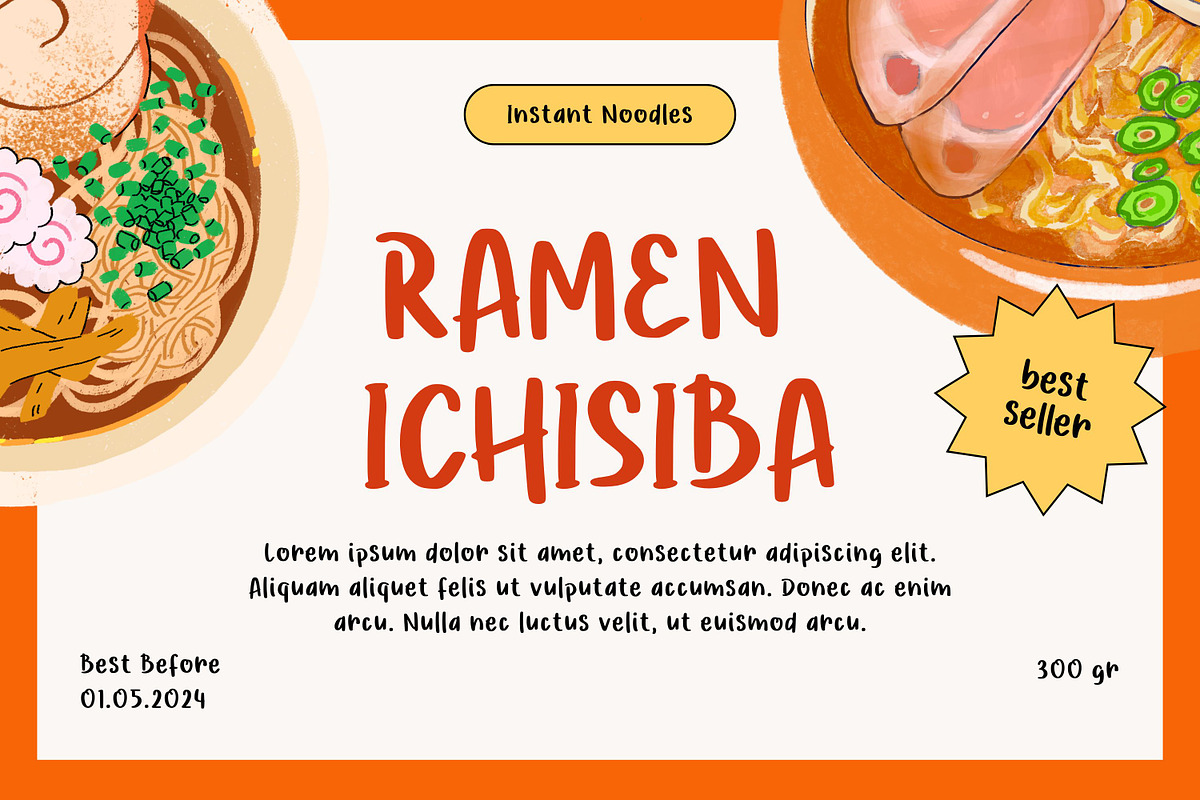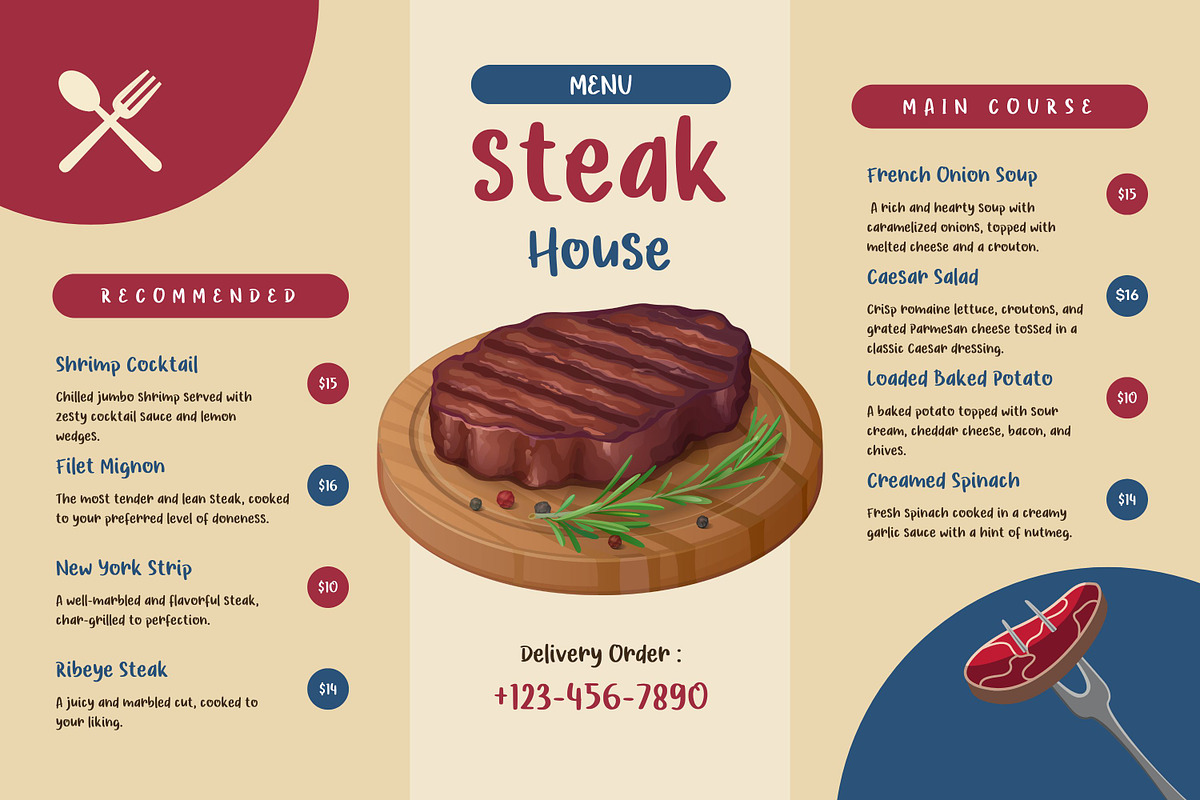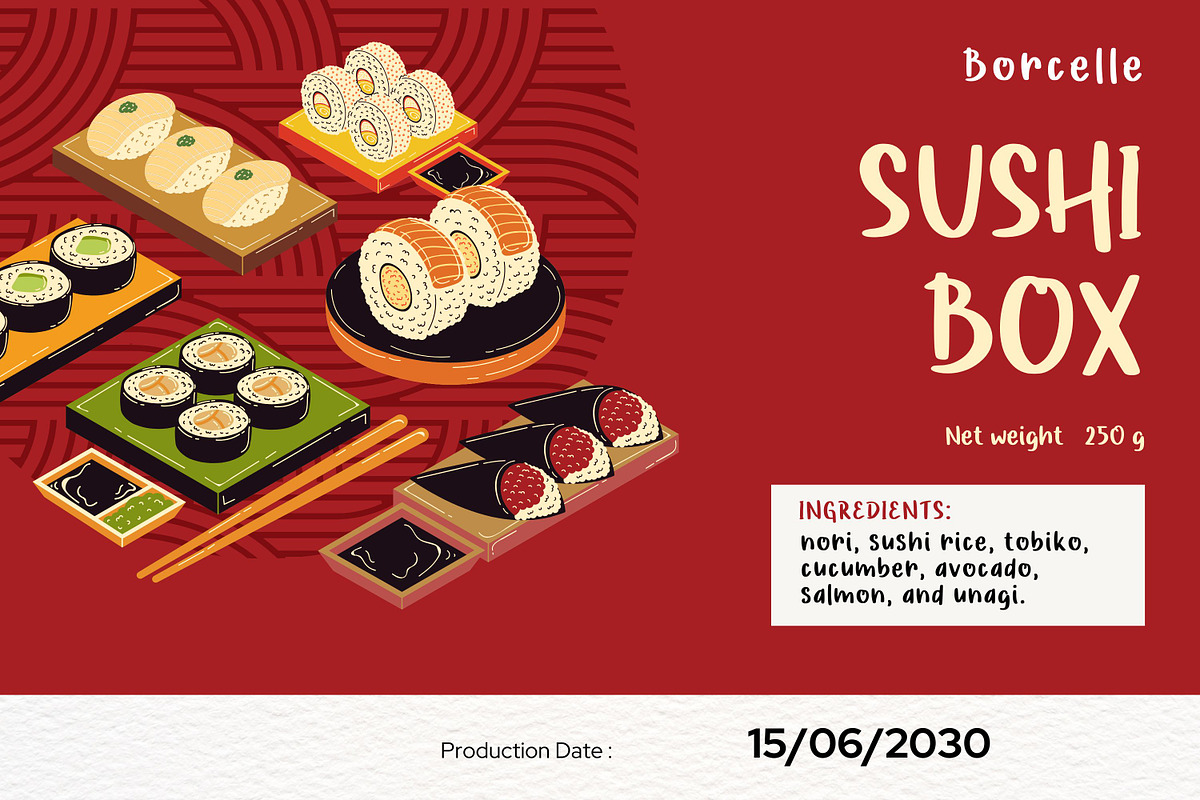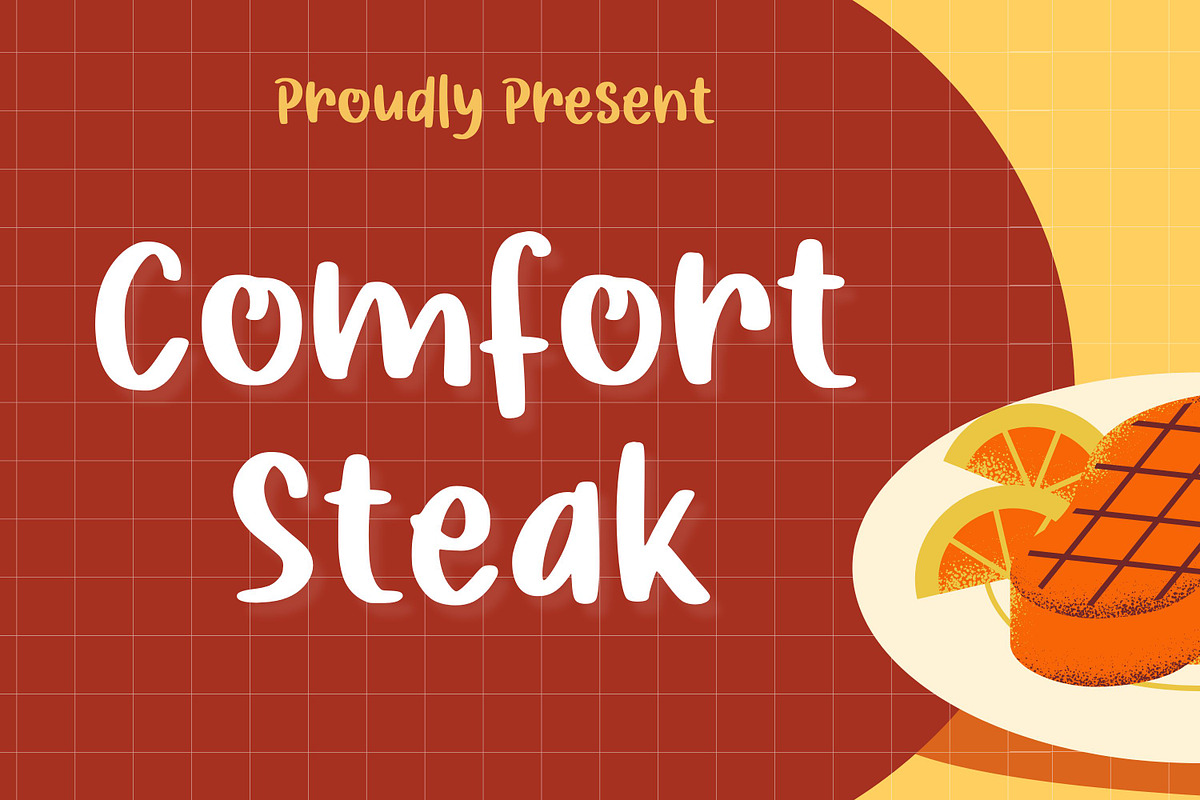
Comfort Steak
Introducing "Comfort Steak," a dynamic and audacious typeface tailored to infuse creativity into any project. With its robust styling, this font is apt for enterprise or crafting exploits. Its contemporary edge lends a unique flair, defining your work with sophistication and ingenuity - a perfect font for those looking to distinguish their designs with a splash of individuality.